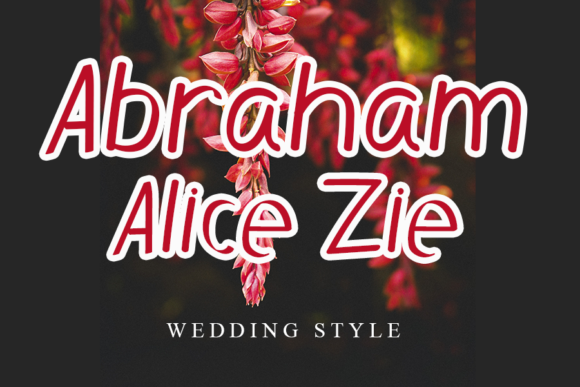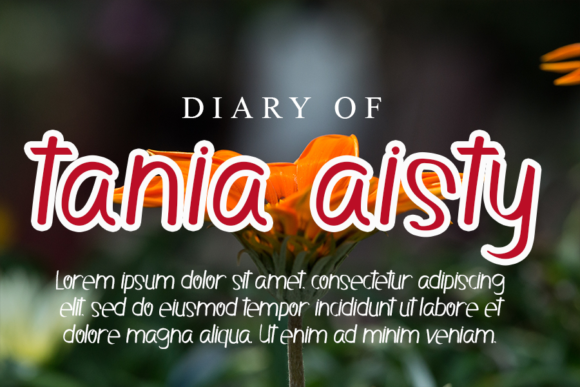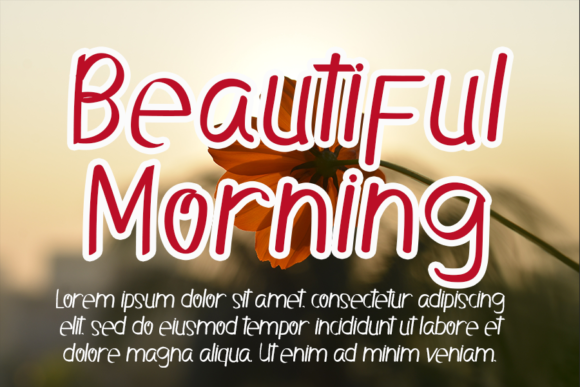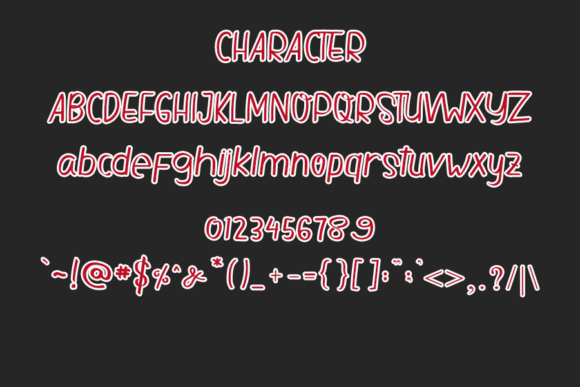
Discover the Charm of Grammys Style Font: Adding Fun and Quirkiness to Your Designs
In the world of typography, fonts play a crucial role in conveying the tone and personality of a design. For designers and crafters looking to add a touch of fun, quirkiness, and authenticity to their creative projects, the Grammys Style Font is an excellent choice. This enchanting handwritten font is designed to turn any idea into a true standout, making it perfect for a wide range of applications, from digital designs to craft projects.
What Makes Grammys Style Font Special?
Grammys Style Font embodies the essence of playfulness and uniqueness, making it an ideal choice for designers who want to add a personal touch to their work. The font’s handwritten style gives it a warm, organic feel that is both inviting and engaging. Whether you’re working on a logo, a poster, a social media graphic, or a craft project, Grammys Style Font can help you create something truly special.
Key Features of Grammys Style Font
• Handwritten Style: The font’s handwritten style gives it a unique and personal touch, making it perfect for designs that require a human feel.
• Fun and Quirky: Grammys Style Font is designed to add a touch of fun and quirkiness to your designs, making it ideal for projects that require a playful approach.
• Authentic: The font’s authentic feel makes it perfect for designers who want to create genuine and relatable designs.
• Versatile: Grammys Style Font can be used for a wide range of applications, from digital designs to craft projects.
Uses of Grammys Style Font
Grammys Style Font is a versatile font that can be used for various design projects, including:
• Logos and Branding: The font’s unique style makes it perfect for creating memorable logos and branding materials.
• Posters and Flyers: Grammys Style Font can add a touch of fun and quirkiness to your posters and flyers, making them stand out.
• Social Media Graphics: The font’s playful style makes it ideal for creating engaging social media graphics.
• Craft Projects: Grammys Style Font can be used for various craft projects, such as card making, scrapbooking, and DIY projects.
Tips for Using Grammys Style Font
To get the most out of Grammys Style Font, here are some tips to keep in mind:
• Pair it with Other Fonts: Grammys Style Font can be paired with other fonts to create a unique and interesting contrast.
• Experiment with Colors: The font’s playful style makes it perfect for experimenting with different colors and color combinations.
• Use it for Headings: Grammys Style Font is ideal for headings and titles, where its playful style can make a big impact.
Grammys Style Font is a unique and versatile font that can add a touch of fun, quirkiness, and authenticity to your designs. Its handwritten style and playful personality make it perfect for a wide range of applications, from digital designs to craft projects. Whether you’re a designer or a crafter, Grammys Style Font is an excellent choice for anyone looking to create something truly special.